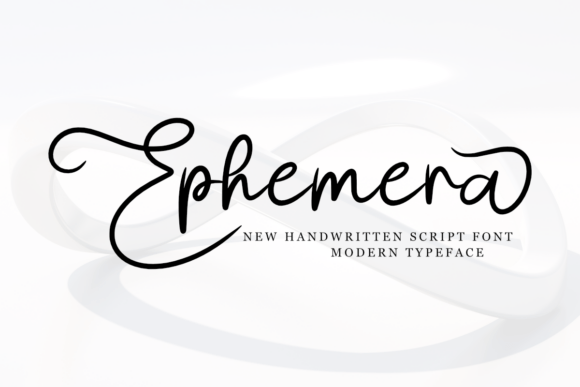
The Perfect Script: Introducing Ephemera Font
As a designer, there’s nothing quite like the thrill of bringing a project to life. It starts with a spark of inspiration – a color palette, a typography choice, or a clever layout that sets the tone for the entire design. For me, that spark often comes from a handwritten font that adds a touch of personality to the page. That’s why I’m excited to introduce Ephemera Font, a modern take on the classic handwritten script.
Ephemera Font is more than just a font – it’s a tool for designers and crafters to add a personal touch to their projects. Whether you’re creating beautiful invitations, branding materials, or social media graphics, Ephemera Font elevates your designs with its elegant and stylish feel. With Ephemera Font, you’ll be able to add a unique touch to your projects and stand out from the crowd.
Ephemera Font Key Features
- Font Family: Ephemera Font is a script font family designed to evoke a sense of elegance and sophistication.
- Character Set: Includes a wide range of characters, including uppercase and lowercase letters, numbers, punctuation, and special characters.
- Unique Characteristics: Features a flowing, handwritten script style with subtle variations in letterform and stroke width to create a natural, hand-written feel.
Ephemera Font Review
I recently had the chance to work with Ephemera Font, and I must say, it’s a unique addition to any design project. Here are my thoughts:
✨ The first thing that caught my attention was the font’s elegant, cursive feel. It’s perfect for creating a sense of whimsy and romance in your designs. ✨ The wide range of languages supported by Ephemera Font is also a major plus, making it a great choice for global brands or projects.
⚠️ One of the main limitations of Ephemera Font is its lack of bold weights. While the regular weight is beautiful, it can sometimes get lost in crowded designs. ⚠️ Additionally, the font’s connections between letters can be a bit uneven, which may affect readability in certain contexts.
Ephemera Font is a lovely addition to any design project, but it may not be the best choice for every situation. If you’re looking for a font with a unique, cursive feel and don’t mind working with a more limited weight range, Ephemera Font is definitely worth considering.
- Unique, cursive design
- Supports a wide range of languages
- Available in various styles and ligatures
- Limited bold weights
- Uneven connections between letters in certain contexts